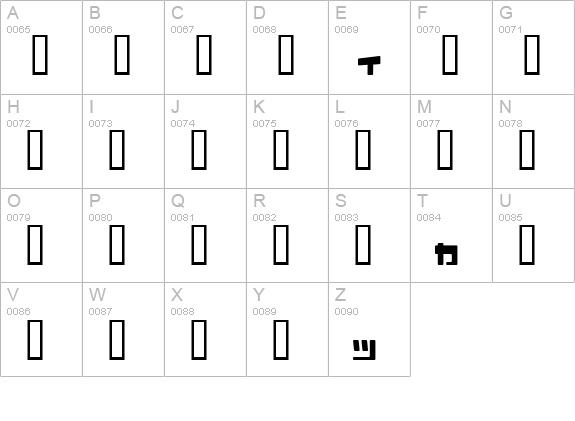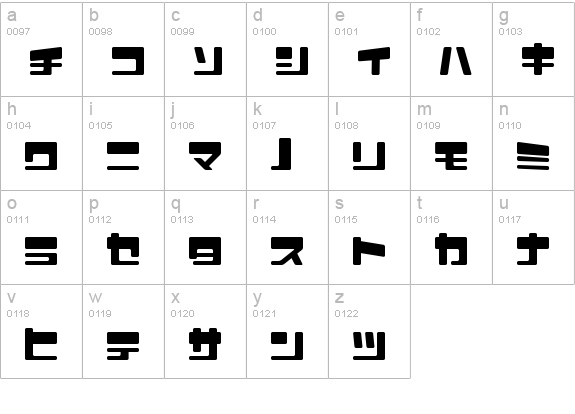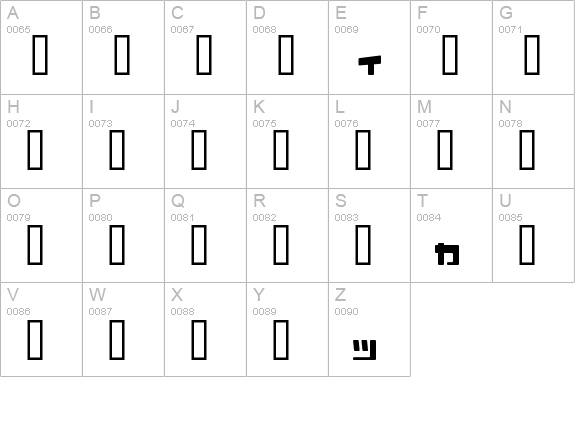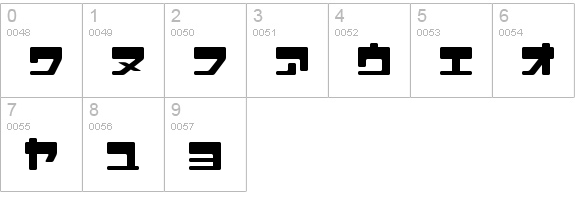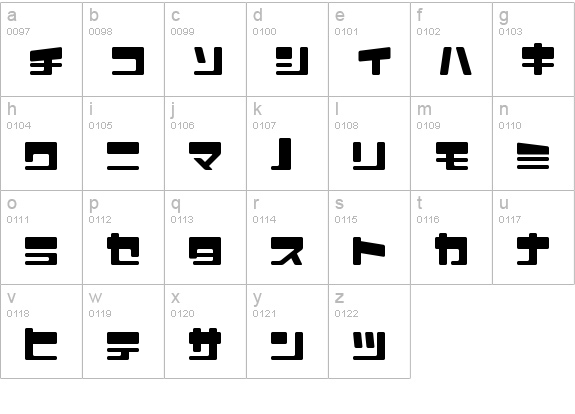
I2Macross J Font Details
I2Macross J is a stunning and versatile font that exudes elegance and modernity. With its sleek and clean lines, this font is perfect for a wide range of design projects, from branding and advertising to packaging and web design. Its unique and eye-catching letterforms make a bold statement while maintaining readability and legibility. What makes I2Macross J even more appealing is that it is free! Yes, you read that right. This amazing font is freely available to download at FontsMarket.com. Now, you can enhance your designs with a professional and stylish typeface without breaking the bank. Whether you're a professional designer or a passionate hobbyist, I2Macross J is a must-have in your font collection. With its extensive character set, including uppercase and lowercase letters, numbers, punctuation marks, and special symbols, I2Macross J offers endless possibilities for creative expression. It is designed with precision and attention to detail, ensuring seamless and harmonious typography in all your projects. The versatility of I2Macross J extends beyond its striking appearance. It is highly adaptable, easily complementing various design styles and themes, whether you're going for a contemporary and minimalist look or a bold and expressive aesthetic. The clean and well-defined letterforms of this font make it suitable for both print and digital media, ensuring a consistent and professional brand image across different platforms. So why wait? Download I2Macross J for free at FontsMarket.com and elevate your designs to new heights. With its exceptional design and accessibility, this font is a true gem in the world of typography. Embrace the power of I2Macross J and let your creativity soar.